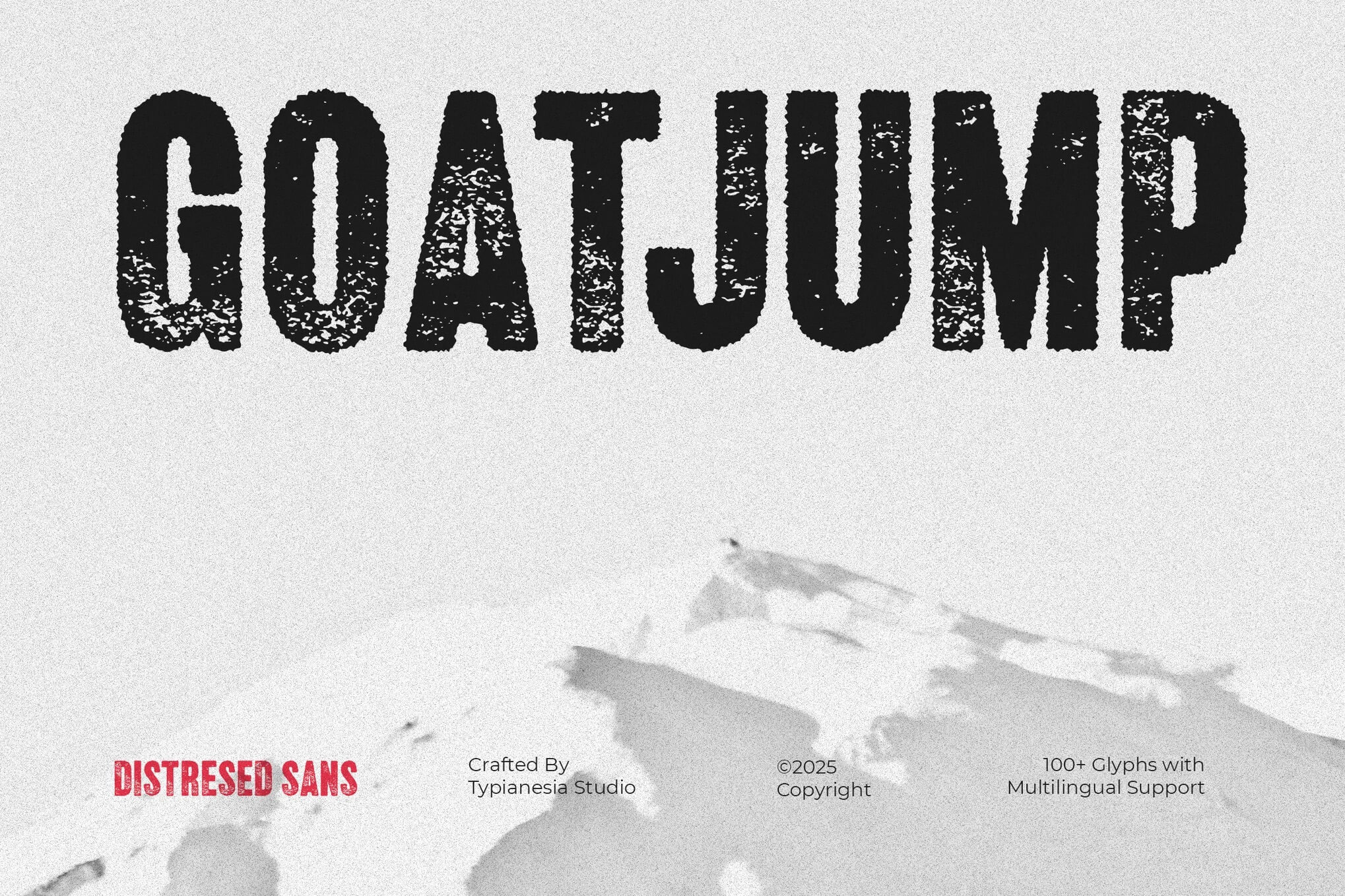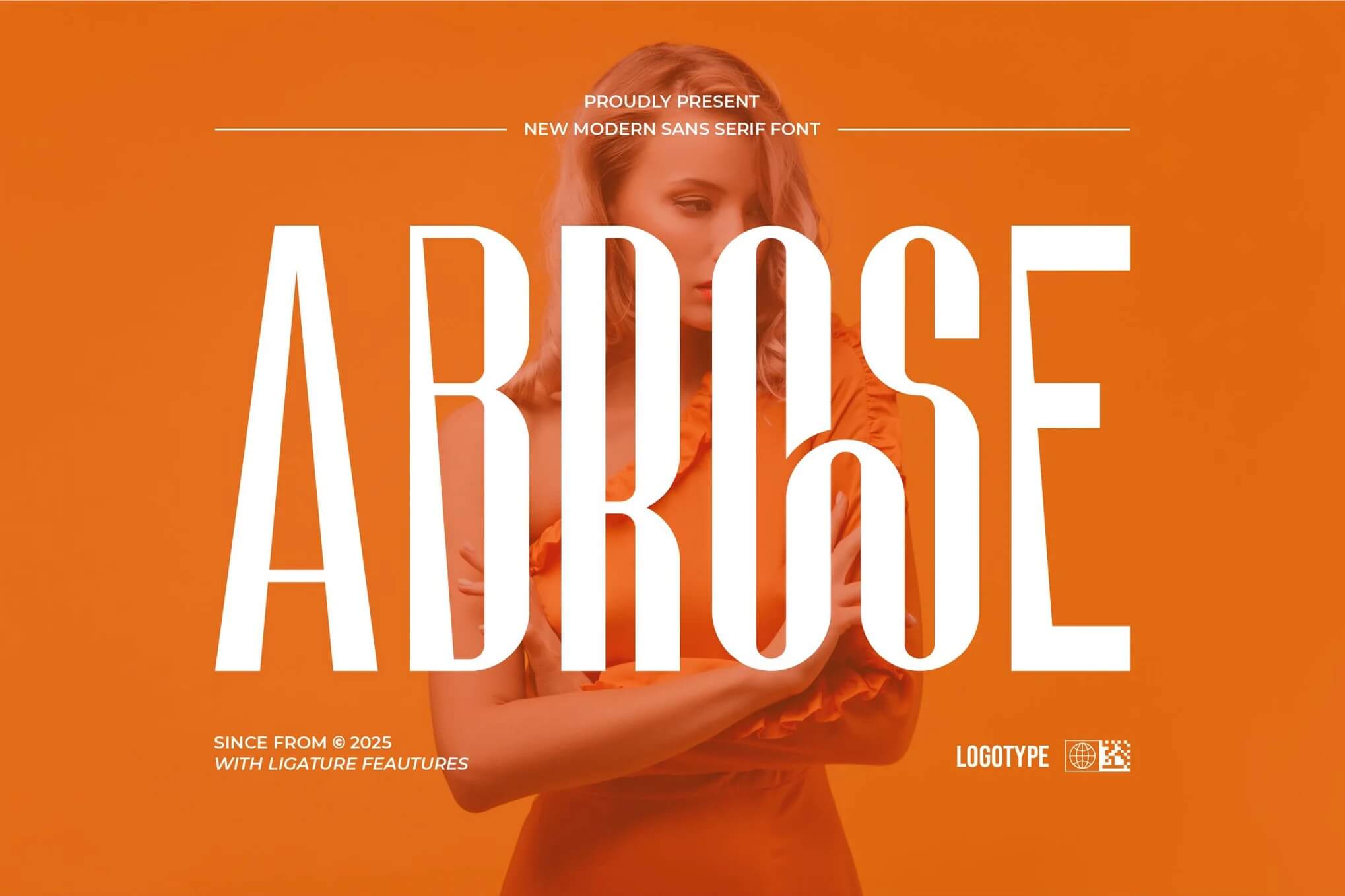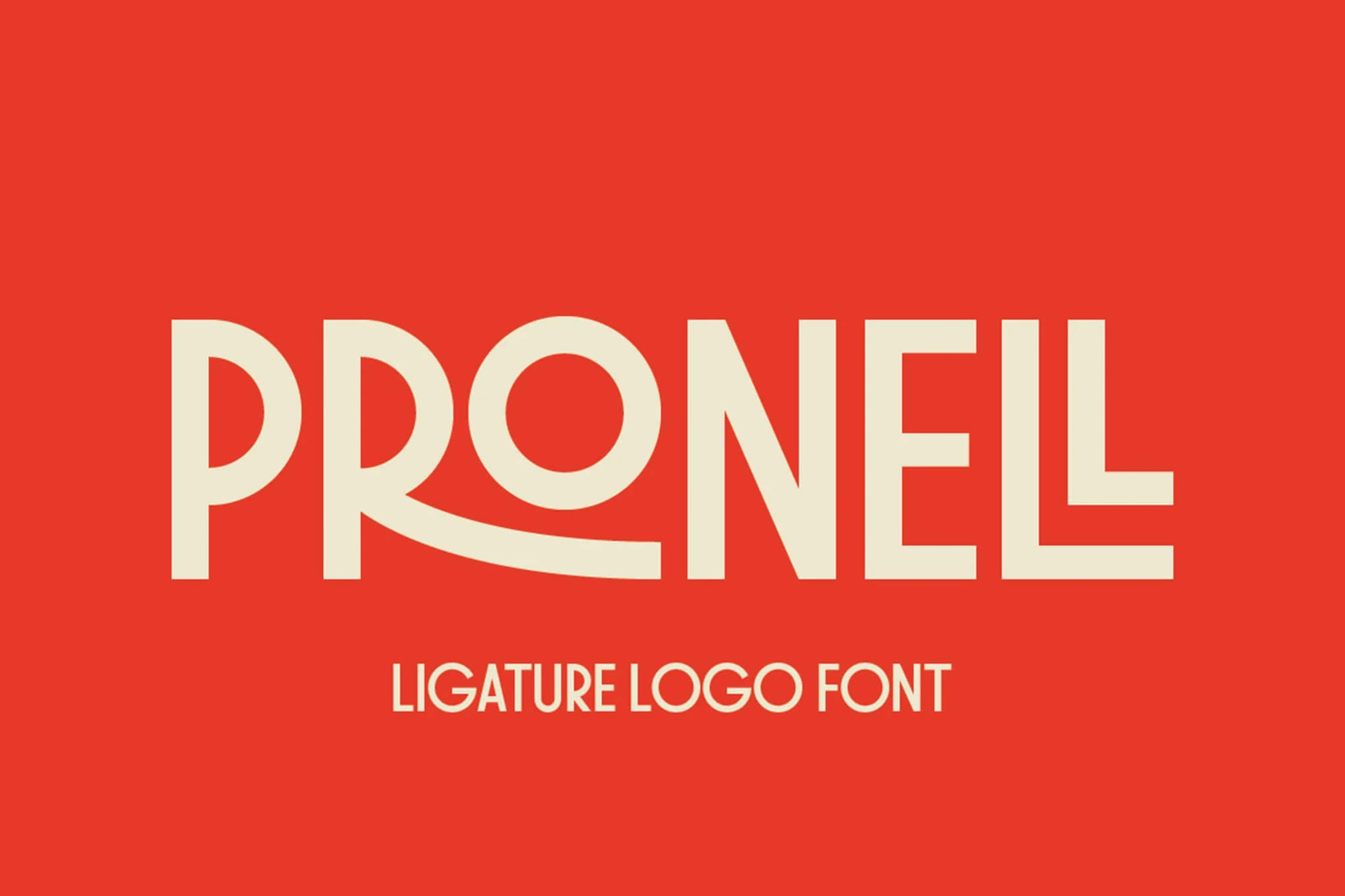
13+ Fonts with All Caps: Uppercase Type & Capital Letters
Ever wondered why some designs scream for attention while others are more subtle?
The secret often lies in strategic font choices, specifically in how designers employ capital letters.
Fonts are among the most powerful tools in typography, but are just as often misused.
When you design logos, posters, or web pages, and you use an all-caps font for titles, then traditional mixed-case typefaces can make or break your visual communication, so to speak!
Meantime, you should read this article because it removes the mystique from making full-caps work for you.
Collage featuring bold typography advertisements, highlighting "15 Best All Caps Fonts." Vibrant designs emphasize readability and style in various artistic layouts.
You’ll find out why particular capital letters need more space than others, discover which all-caps fonts are most suitable for certain applications, and learn about the psychological effects of upper-case alphabets on your reader.
By then, you will know enough about typography to make choices that enhance instead of muzzling whatever message is emanating from beneath them.
Top Fonts with Caps
Goatjump – Bold Vintage Rough Distressed Stamp
Text "GOATJUMP" in bold, distressed font on a textured background. Includes "Distressed Sans" and "Crafted by Typianesia Studio." Copyright ©2025, multilingual support noted.
Goatjump brings serious vintage vibes with its bold, distressed texture that looks like it came straight from an old rubber stamp.
Perfect for craft beer labels, rugged logos, or any project needing that authentic worn in, handcrafted feel. This sans serif font adds instant character and gritty personality to your designs.
Abrose | Modern Sans Serif Allcaps Font
A person stands against an orange background with large white text overlay reading “ABROSE.” Modern sans serif font promotional design.
Abrose is a sleek all-caps sans serif that brings serious modern vibes to your branding projects. It’s got that clean, minimalist aesthetic with stylish ligatures that make headlines and logos pop.
Perfect for when you want something contemporary and polished without being too formal or stuffy.
Pronell – Modern Retro Display Font
Stylized text reading "PRONEL Ligature Logo Font" in bold font on red background. No people, landmarks, or historical buildings are visible.
Pronell is a seriously cool display font that brings together nostalgic retro aesthetics with sharp, modern geometric design.
The clean lines and bold character make it incredibly versatile for everything from eye-catching posters and branding projects to social media graphics that really pop. It’s got that perfect balance of playful energy and contemporary style.
Sports Display Curveball Font
Golden "Curve Ball" text with flaming baseballs; person playing baseball in background. Bold, sporty design emphasizing action and movement.
Curveball is perfect for sports designs that need serious energy and impact. This bold display font brings that classic athletic vibe with sharp edges and dynamic curves.
Whether you’re creating team logos, event posters, or merchandise, it delivers a powerful competitive feel that really stands out. Great for both digital and print work.
Dragons Gravity – Display Font
Red background with "Dragons Gravity Display Font," featuring a dragon icon. Decorative branches, flowers, and lanterns add a festive touch.
Dragons Gravity is a bold display font that brings serious personality to your designs. Perfect for sports branding, food packaging, and eye-catching posters, this typeface has that modern edge with just enough playfulness to keep things interesting.
It includes uppercase, lowercase, numbers, and multilingual support, so you can use it across different projects without limitations.
Epsor – Sports Font
Person running on a track, featuring bold display font "EPSOR" by Ovoz, with multilingual support and established in 2025.
Epsor is a bold sports font with a sleek, futuristic vibe that screams speed and energy. Its dynamic lines and modern flow make it perfect for anything athletic, from racing graphics to gym branding.
Whether you’re designing basketball posters or soccer campaigns, this font brings serious motion and competitive edge to your projects.
Rushcaps – Bold All Caps Marker Font
A crumpled paper background showcasing bold, black lettering: "Rush Caps." Text promotes a rough, hand-drawn sans serif font style.
Rushcaps is a bold all caps marker font that brings serious street energy to your designs. It’s hand drawn with thick, rough strokes that feel raw and authentic, perfect for posters, album covers, or anything that needs to make a statement.
The font gives you uppercase letters in both cases, so you can play with sizing while keeping that edgy marker vibe consistent throughout.
Catatan Deco – Playful Handwritten All-Caps Font
Image introduces the Catatan Deco font with playful, all-caps letters. A cartoon elf character waves, surrounded by vibrant colors and friendly text.
Catatan Deco is such a fun, chunky handwritten font that’s perfect when you need something playful and easy to read.
Think kids’ projects, classroom posters, or any design that needs that cheerful, doodly vibe. It’s all caps and comes with web font files, so you’re covered for both print and digital work.
Rockmost – Classic Magic and Horror Allcaps Serif
Text reads "Rockmosh Classy Vintage Fantasy Serif" over a dark, classical artwork with mythical figures, presented by Typia Nesia Std.
Rockmost is this gorgeously dramatic all caps serif that screams vintage magic and gothic mystery.
Perfect for anything from fantasy game titles to metal band logos, it brings that classic horror movie vibe with elegant, oversized letterforms. Think pirate adventures, dark fantasy worlds, and anything that needs a touch of mystical drama.
Goldroom
Art Deco-style design with gold geometric patterns and sun motif. Central bold text reads "Goldroom" on black background, bordered by yellow accents.
Goldroom brings that glamorous 1920s art deco vibe to life with its sharp angles and geometric elegance.
This all caps display font is perfect for vintage posters, luxury branding, or anything that needs a touch of Jazz Age sophistication. It comes in three gorgeous styles and supports multiple languages too.
SAKA – All Caps Rough Font
Bold, textured font design with purple background and green accents, promoting "SAKA Rough Display Font." Includes copyright and 2024 reference. No landmarks.
SAKA is an all caps rough font that brings serious attitude to any project. Think distressed edges, raw energy, and a rebellious vibe perfect for streetwear brands, sports designs, or bold posters. It’s got that gritty, urban feel that makes your message impossible to ignore.
Benfica Royale – All Caps Serif Display
Ornate serif font text "Benfica Royale" on green background, adorned with detailed floral illustrations. Description of multilingual support and font details included.
Benfica Royale is a stunning all caps serif that brings serious elegance to your projects. The high contrast strokes and graceful curves give it that luxury editorial vibe, perfect for branding, invitations, or any design that needs a sophisticated touch with personality.
Bring Blaster – All Caps Brush Font
Bold, brush-style text announces "Bring Blaster." A skateboard rests against a fence in the background, creating an urban, edgy feel.
Bring Blaster is a bold all caps brush font that brings serious energy and attitude to your designs. Perfect for sports branding, movie posters, t-shirts, or anything that needs a raw, hand-painted vibe.
It’s got that wild, rebellious feel with multilingual support and comes ready for both personal and commercial projects.
Jason Caps
Vintage-looking poster showcasing "Jason Capitals" font in blue, bold letters on textured background. Designed by TypeFaith Fonts.
Jason Caps feels like a reclaimed woodblock face with strong vintage character and playful ornaments. It’s all caps and comes in regular and distressed versions so you can pick crisp or truly weathered textures. Perfect for retro posters, labels, and bold branding.
What Are All-Caps Fonts and Why Do Designers Use Them?
All-caps fonts are fonts that are completely capitalized, and differ from lowercase lettering, even though any font may also be manually set by using CSS to be in upper case letters.
Every letter is changed to its uppercase version with these fonts, creating a smooth rhythm of visual uniformity poles apart from mixed-case type.
Designers have a number of powerful reasons to work in all caps: it forces viewers to notice, gives them a sense of certainty and security, and is also currently used by all kinds of professionals as design templates that look both contemporary and clean.
Capital letters are appealing for far more than aesthetic reasons. When you scan the thousands of fonts available through Adobe Fonts, Google Web Fonts, or commercial font libraries, you will notice that some of them seem specifically designed to be used in capital form.
These specially designed caps fonts have been carefully adjusted for kerning, their letter spacing is balanced, and their proportions are such that the visual density problems associated with quickly converting text to uppercase are avoided.
However, not every situation calls for all-caps treatment. Knowing when capital letters will help your design rather than get in the way of people reading it is essential for effective typography.
A decorative script font set entirely in capital letters is likely to be completely illegible, while a bold sans-serif typeface could look stunning and be perfectly readable with this treatment.
It all lies in choosing the right typeface for what you’re trying to achieve with a particular piece of design, and understanding how upper-case letters interact with their surrounding space.
How Do All-Caps Fonts Affect Readability and Legibility?
Setting all caps for text slows down the fluent reading of it and reduces one’s ability to comprehend the overall content.
Several tests in North America and Europe have shown that reading continuously in all capital letters makes readers read 10 to 20 percent slower than when reading mixed-case type.
The reasons for this phenomenon are actually quite simple. Lowercase letter forms have different ascenders (like ‘h’ or ‘l’) and descenders (like ‘g’ or ‘y’) which create their own unique shapes.
Consequently, the human brain is able top complete, based on this information and the context of surrounding letters if any ambiguity exists for any given character.
Yet “all upper case text” usually has little pattern recognizability because its letterforms are uniform in height. Legibility (the ability to distinguish individual characters) also suffers when you appear in all caps for extended passages.
The uniform height of capital letters creates horizontal bands that strain the eye, particularly on screen, where resolution and contrast may already be compromised.
Additionally, all-caps fonts require approximately 30% more horizontal space than their mixed-case equivalents, meaning your message consumes more real estate while becoming harder to read.
This space inefficiency becomes especially problematic in web design, where responsive layouts must accommodate a range of screen sizes.
In certain instances, however, all-caps fonts remain perfectly legible and even desirable. Short headlines, navigation menus, buttons, and graphic elements benefit from the visual clarity and punch that uppercase text brings.
And so, the trick is to use uppercase letters sparingly-to say what you need in a manner typically under 15-20 words.
When there is plenty of open space, for instance, during complex layout work or in a large headlining type size but very short on text, then absolutely nothing else achieves visual authority like a thought-out caps font.
What Types of Fonts Work Best When Set in All Caps?
Not every typeface looks right in capitals. Sans serif fonts generally work well as all caps, because their clean, geometric balance can retain legibility without the assistance of ascenders or descenders.
Part of the reason designs like Helvetica have laid claim to standard status is that their capital letters behave supremely in this evolution of the alphabet.
The simplified letter forms of a sans serif face prevent the sort of visual clutter that can afflict more complex fonts.
A serif font will also function nicely in all caps, especially if it is chosen from among the more mass style designs, where strokes within letters don’t excessively contrast one another.
The traditional designs in type families with low-key bracketing and clear apertures retain readability even when cropped to capitals.
However, avoid using all caps with high-contrast serifs that have extremely thin lines and hairlines, as these delicate components can vanish at small sizes or on certain backgrounds, compromising legibility.
All caps pose the most difficulties for upper-case application with scripts. Many script faces are specifically designed to flow smoothly between units of lowercase type; setting them all in capital letters negates their original form and usually makes them almost unreadable.
Similarly, decorative typefaces lose their beauty when put in all caps and become a mess.
If you must have these kinds of fonts for your vision, then strongly consider mixed case or even all lower case variations in order that the typeface’s natural aesthetic may be preserved in a final product that continues to look easy to read.
When Should You Use Capital Letters in Your Design?
The strategic use of capital letters presupposes an understanding of both context and hierarchy. Headlines and titles are the simplest screen applications for all-caps fonts.
These brief, impressive little give the highest benefit from that stamp of authority which uppercase text carries.
Capital form is frequently employed in logo design because its even height enables it to form clean geometric shapes and maintain its identity even as it increases in size.
The same is true of navigation elements, buttons, and calls to action, where brevity must be matched by visibility.
As for emphasis within body text: using all caps occasionally may just be justified, but you should exercise considerable judgment.
For highlights within a paragraph or for particular words that you wish to accent, consider bold-weight or italics before resorting to blocking.
If it were necessary to use capital letters for emphasis within paragraphs, then we must limit that to single words or extremely short phrases, we cannot write whole texts in capitals.
Text rendered all in capital letters generally comes across as screaming. Make sure this capitalization of emphasis matches what you intended to say.
Cultural and industrial contexts also dictate when capital letters are appropriate. In legal documents, the headings often appear entirely in capital letters, whereas much modern legal design opts for mixed case to improve legibility.
When we read this kind of uppercase script, however, we are reminded of the uniform height in architectural drawings and technical diagrams of a similar nature.
Fashion and luxury brands tend to use all-caps fonts to convey sophistication and luxury.
An understanding of these standard applications will help you arrive at decisions that are appreciated by your target audience and, at the same time, do justice to existing design grammar.
How Does Letter Spacing Impact All-Caps Typography?
Kerning, or the adjustment of the space between pairs of individual letters, is a crucial consideration when setting in headline text.
Capitalisations tend to form too thick a mass located at their normal spacing, making them look vastly too crowded and interfering not only with their legibility but also with reader comfort.
For print designers, the general rule of thumb is to increase letter spacing (also known as kerning) when set in all caps. They typically add between 5% and 15% more space than the font’s default setting to allow each character some room to breathe.
Different typefaces require different adjustments to the space around the letters. A condensed sans-serif may need only a little tracking; pronounced serifs on a serif face require much wider spacing to avoid filling in the white space between characters.
The intended viewing distance also affects your spacing choices. A billboard viewed from 100 feet will need denser letter-spacing than a business card held at reading distance.
Experiment with tracking values until you reach a balance where individual letters are distinct, without appearing to float apart from each other.
Many applications for design, Microsoft Word, Adobe Creative Suite, and the like, make easing your tracking adjustments simple with a simple character formatting panel.
Web designers can also manage letter spacing using CSS, giving them precise control over how capitalised text appears on screen across a wide range of retrieval devices. Line space (leading) is also important.
A little extra vertical space between lines in all-caps fonts can help to counteract their heavy visual weight, making text blocks easier on the eye overall. These subtleties are what separate amateur design from pro work.
What Are the Psychological Effects of Using All Caps?
Uppercase text inherently conveys authority, permanence, and formality. Capital letters carry a lot of emotional weight: they give various psychological overtones to your message Capital letters carry a lot of emotional weight.
Consider how government buildings, monuments, and legal documents traditionally employ the capital form.
It seems that this association, or even psychology, makes all-caps type fonts a good choice when gravitas, credibility, or a feeling of traditional continuity are needed.
Brands seeking to position themselves as established authorities often leverage this psychological effect through uppercase typography.
However, the top of Capital letters cuts both ways: in digital communication, uppercase letters signify aggression or anger (the infamous “shouting” effect).
This is so entrenched in our culture that when you send emails, texts, or social media posts in all caps, it screams and causes bad repercussions for readers.
Younger audiences, in particular, interpret aggressive uppercase as old-fashioned or uncouth, which can damage brand perception among key demographics.
The cultural context of your audience also shapes how they interpret capital letters.
Western readers typically associate uppercase with official correspondence and occasionally even military precision, while in other linguistic traditions, capitalization is completely different.
Some languages do not draw a distinction between upper and lower case letters; for them, it is purely an aesthetic choice rather than one of grammar.
Consider your audience’s cultural background and communication customs before resorting to all-caps solutions, to ensure your typographic choices enhance rather than detract from your message’s content.
How Can You Use All-Caps Fonts in Web Design Effectively?
There are unique challenges and opportunities offered by the internet environment for upper-case letters. On-screen legibility is different from print.
The resolution of a screen, its contrast settings, and whether it is backlit (and by how much) will all affect how capital letters appear to readers.
When designing for the web, seek out typefaces that carry capital letters with equal weight to lower cases. Such letters can be read well on screens of any size or quality.
Sans-serif typefaces usually perform best in digital environments. Distinguish your all-caps content from regular text.
CSS offers robust tools for setting up uppercasing styles without modifying the original HTML. Using the text-transform setting allows you to change text to uppercase at the script level and keep it live if later changed to something else.
However, this approach keeps the semantic meaning as well. For example, visually impaired readers using screen readers read your text naturally, not in all caps that announce each letter as they go. Put them together and control letter-spacing for the best effect.
Making all text as large as possible is crucial for mobile web design. Smaller screens mean limited space, and uppercase letters cost approximately 30% more horizontal space than mixed-case text.
This inefficiency of space can break the layout that seemed lovely on a well-sized monitor; furthermore, it forces awkward wrapping of text in smartphones and other handheld devices.
So check your designs across multiple screen sizes to ensure the all-caps elements remain readable and do not upset the general visual hierarchy.
At times, the best way to make your site work on a smartphone involves reverting to mixed case and uppercasing for certain breakpoints while still using all caps exclusively on larger displays.
What Are Common Mistakes When Working With Capital Letters?
Split all-caps and body copy (i.e. big paragraphs using only capital letters) is the most common error. This error is not difficult to fix, but it can make type harder to read and will identify yours.
Keep capital letters for headlines, short copy that needs emphasis. Your body text should be easy and quick for readers to process simply by altering the size of your typeface and other font format.
If it still must be in all capital letters, then maybe you should reconsider everything about your typographic strategy now. A failure to adjust letter spacing is another common error.
Designers of a chaotic nature will employ uppercase letters in their publications without altering the tracking.
The end product: unreadable jam crammed into the confines where language used to reside. Always, when you use capital letters, remember to expand letter spacing.
This is not just important in typesetting, it is essential to the readability of your work. The failure to adjust line leading creates text that looks heavy and unreadable, making people turn away instead of drawing them in to read.
Choosing the wrong typeface for all-cap applications is responsible for much poor typography. Uppercase calligraphic hand fonts lose their elegant quality when forced into all-caps format.
The more ornate typefaces, which are designed for display as whole lines of characters rather than letter by letter production, become a visual jumble when they are set in uniform-height capitals.
High-contrast serif designs with hairlines as delicate as threads will simply disappear into oblivion if given the all-caps treatment.
Always examine whether it really works in capital letters before gleefully committing yourself to an all-caps treatment for your chosen font.
Sometimes finding an entirely different typeface produces much better results than trying to force an unsuitable font height into uppercase position.
How Do Professional Designers Choose Between Uppercase and Mixed-Case?
To make this decision, professionals analyze the hierarchy of information systematically. Accordingly, the merchandise is prioritized; one can decide which elements, if any, should inherit capital letters in themselves.
Primary headlines would receive uppercase treatment, secondary subheads mixed with first capital letters, and the text body remains in standard sentence case.
As a result, a clear visual hierarchy is created that leads readers through the story line with ease and each level of text gets its due emphasis.
Context and function determine font decisions rather than subjective style expressions.A designer laying out a luxury fashion lookbook may select elegant all-caps fonts to express sophistication and exclusivity in every fiber of the work.
However that same designer creating an educational Web site is likely to reserve uppercase lettering for calls to action and headings alone, understanding that readable body type serves users over strictly aesthetical consistency.
Matching typeface decisions to system function is the difference between competent design and mere decoration.
The medium and reproduction methods must also be considered by successful designers. The typography for an all-caps design on a poster that will be closer to its viewers’ eyes can be more experimental because they are able to look at details of the print.
However, digital interfaces need to take a more conservative approach. It is essential that type still be legible under any screen conditions and at widely varying resolutions of display monitors.
Printed materials on high-quality paper permit subtle serif typefaces in uppercase, but cheap newsprint would demand bolder sans serifs.
Knowing how your chosen medium comports itself will guarantee that capital letters to not undermine but enhance the end result of type setting.
What Tools and Resources Help You Work With All-Caps Fonts?
In the case of the latter, you should finally be able to demonstrate all of this! Font libraries like Adobe Fonts and Google Fonts feature thousands of typeface designs types, they have trying-on functions that provide you with test outlooks for how fonts would look in all-caps.
These platforms usually provide filters for categorizing. A search specifically for sans-serif fonts formatted for large display use sharply limits choices to good fits for all-caps titles.
Many of them also give license information for commercial use, meaning the font identification you ultimately choose is guaranteed to be consistent with the project requirements at hand.
Software programs ranging from Adobe Illustrator, Photoshop, and InDesign all offer advanced typesetting features that make the upper-case text as perfect as possible.
In the character menus precise adjustments are made not only for tracking but also kerning, the way letters are spaced and optically aligned lines (capital letters, for example), so your lines of text still look professional.
In most of these programs there is an option called “all caps” which changes all text to be upper case without altering its structure, thus preserving your ability to edit the underlying mixed-case for greater flexibility and ease-of-use.
Online sources of design advice and regional typographic online communities offer a wealth of guidance for handling all cap letters.
Typographic dedicated websites exhibit actual cases of successful all-caps design, illustrating the happy use letter spacing, font combination, and mix-color printing.
Design forums put you in touch with professionals who can look at your work and give helpful criticism.
Books on typography (both classic texts and modern guides) present the historical background to capitalese and provide a body of theory on which practical work can base itself.
With a little of an investment in that kind of education, the beginner to typesetting rapidly converts into someone who has confidence in dealing with type and fonts, from character selection within words through heading fonts or possible uses as caps display.